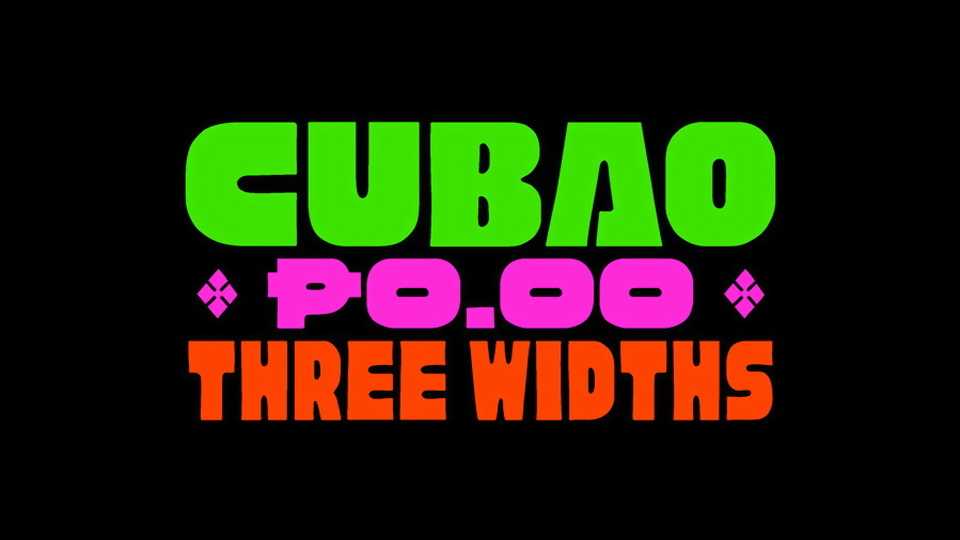
Download Cubao Free font, a hand lettered display typeface dedicated to the Filipino Sign makers, Jeepney drivers, and the daily commuters of Metro Manila and anywhere in the Philippines.
Designer: Aaron Amar